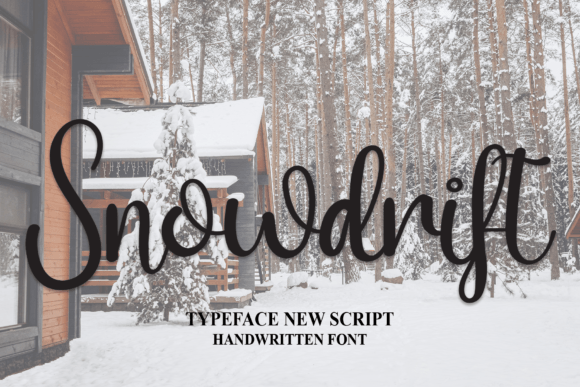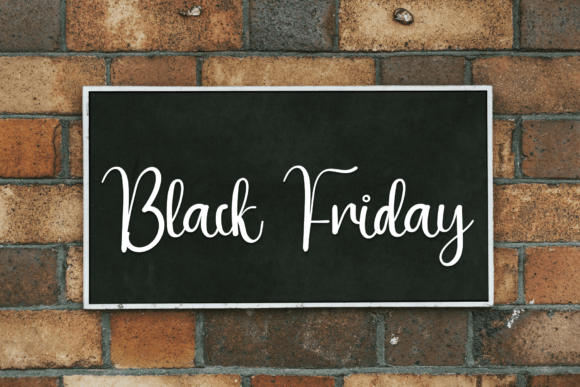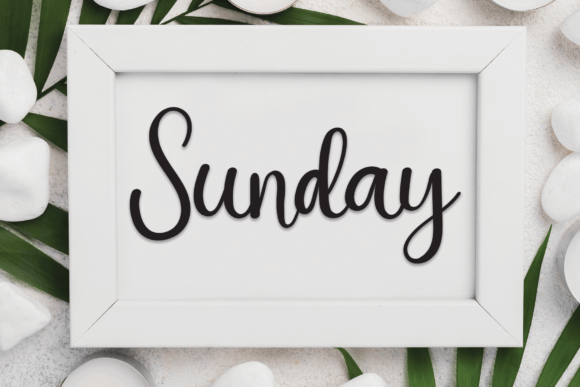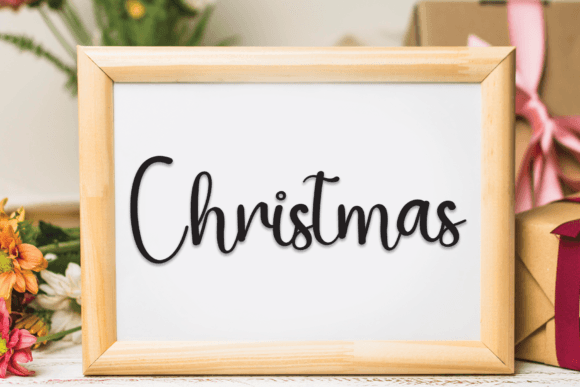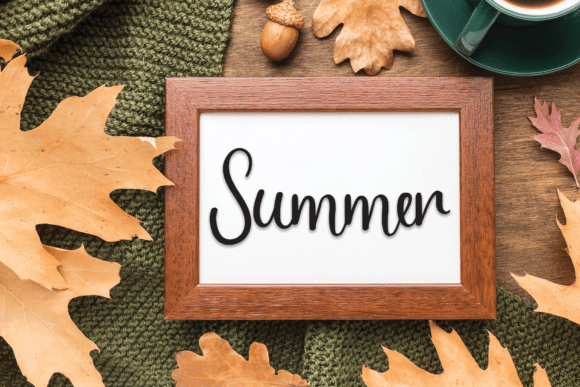
Snowdrift Font
Bring Winter Charm to Your Designs with Snowdrift Font
Snowdrift Font is a friendly, handwritten typeface designed to bring a soft, cozy feeling to your creative projects. Whether you’re crafting a holiday card or designing digital content, this font captures the essence of warmth during chilly winter days.
Perfect for Seasonal and Everyday Use
This font shines brightest in holiday-themed designs, but it’s also versatile enough for year-round creativity. Use Snowdrift Font for:
• Greeting cards and invitations
• DIY holiday crafts and ornaments
• Social media posts
• Winter-themed digital projects
• Custom merchandise like mugs or t-shirts
Its casual strokes and clear readability make it suitable for both decorative titles and smaller body text.
Add a Handwritten Touch
What makes Snowdrift Font truly special is its handwritten personality. Each letter flows naturally, resembling real handwriting. This makes it an ideal choice for personal and heartfelt messages, festive graphics, and designs that call for a handcrafted aesthetic.
With its simple charm and welcoming tone, Snowdrift Font is the perfect way to make your projects stand out during the colder months—or any time you want to bring a little warmth to your work. Its style speaks softly but leaves a lasting impression.